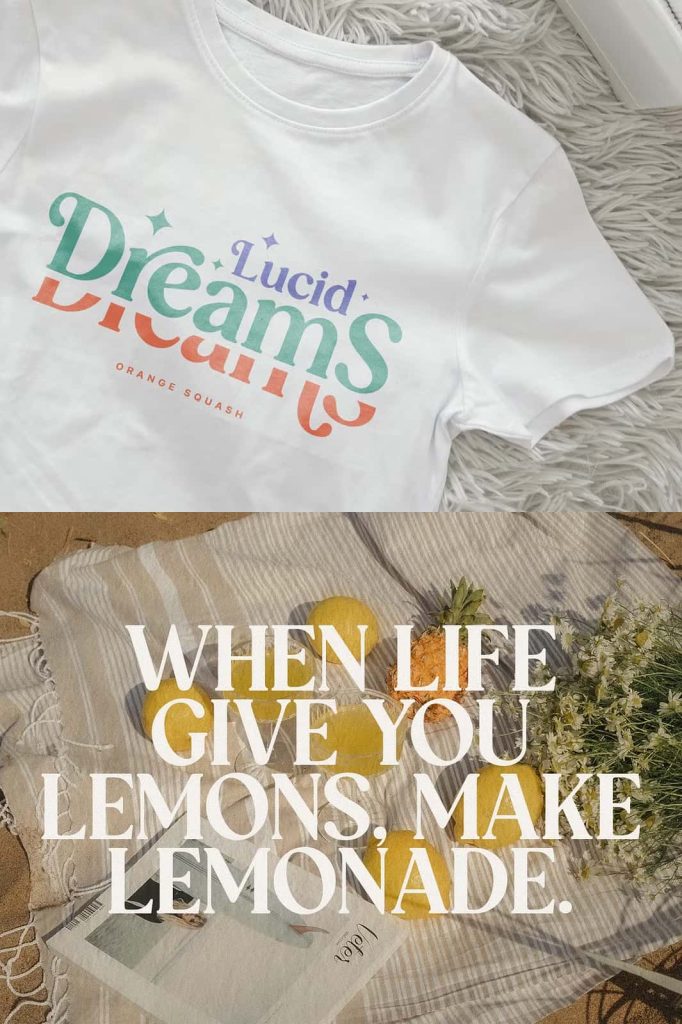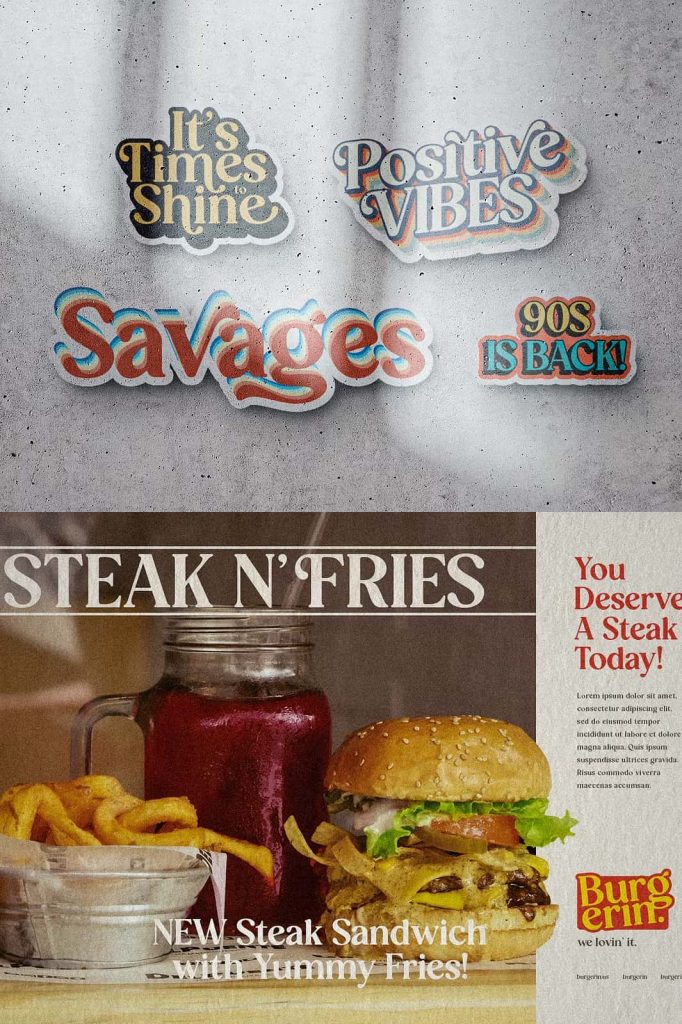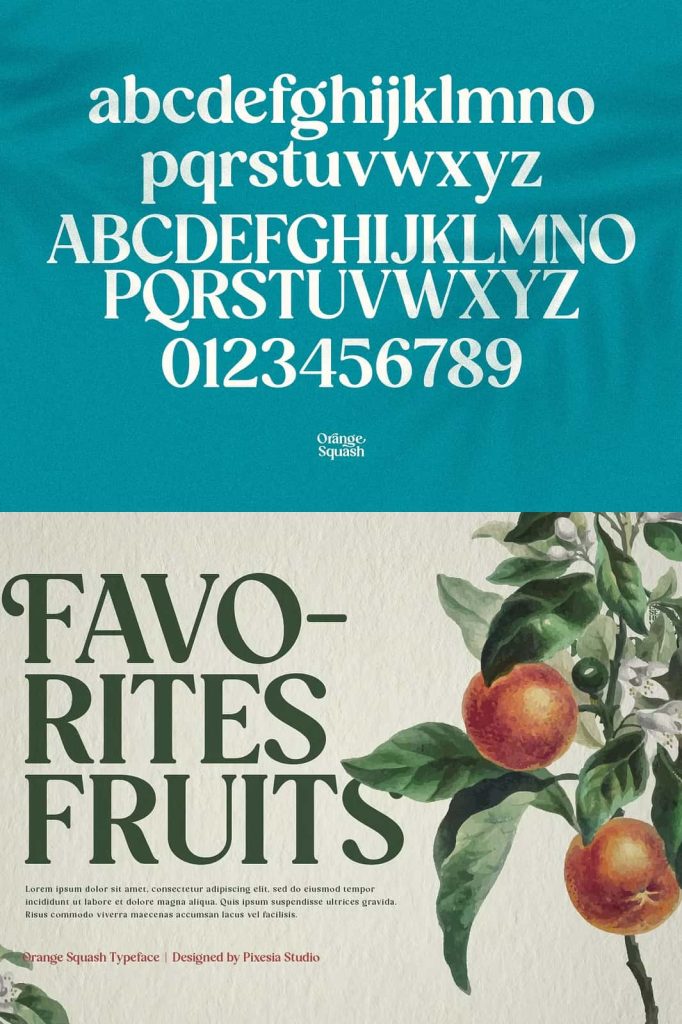
Orange Squash Vintage Serif Font for Bold and Playful Designs
Orange Squash is a vibrant vintage serif font that blends bold structure with playful character. Designed to bring nostalgia and energy into your work, this typeface features chunky serifs and smooth curves that instantly capture attention. Whether you create branding, packaging, or editorial layouts, Orange Squash helps you deliver designs that feel expressive, memorable, and visually engaging.
Bold Serif Style with Playful Personality
Orange Squash stands out through its strong serif construction combined with soft, rounded details. The chunky serifs give the font a solid and confident presence, while the playful curves add warmth and approachability. This combination creates a balanced design that feels both bold and friendly.
The font’s unique personality makes it ideal for projects that need to communicate creativity and originality. Instead of appearing rigid or overly traditional, Orange Squash introduces a lively twist that keeps your designs fresh and engaging.
Designed to Capture Attention
Every letter in Orange Squash has been carefully shaped to maximize visual impact. The bold strokes ensure readability, even at larger sizes, while the distinctive curves make each word stand out. This makes the font highly effective for display purposes, where grabbing attention is essential.
You can use it to highlight key messages, create striking headlines, and build compositions that immediately draw the viewer’s eye.
Bring Nostalgic Charm into Modern Projects
Orange Squash channels a vintage aesthetic that feels both nostalgic and relevant. Its retro-inspired design allows you to evoke classic design eras while maintaining a modern edge. This versatility makes it suitable for a wide range of creative directions.
Designers can use this font to create visuals that connect with audiences through familiarity and charm. The nostalgic elements add depth, helping your work stand out in a competitive visual landscape.
Perfect for Headlines and Logos
Orange Squash excels in headline and logo design. Its bold and playful style ensures that your typography becomes the focal point of your composition. Whether you design posters, advertisements, or brand identities, this font helps you create strong and memorable visuals.
The distinctive serif shapes give logos a unique identity, making them instantly recognizable. This makes the font a powerful tool for branding projects that aim to leave a lasting impression.
Enhance Packaging and Advertising
In packaging and advertising, strong typography plays a crucial role in attracting attention. Orange Squash delivers exactly that with its bold presence and playful character. You can use it to highlight product names, promotional messages, and key information effectively.
Its vintage style works particularly well for products that want to evoke tradition, quality, or a sense of nostalgia. At the same time, its clean execution ensures that it fits seamlessly into modern marketing campaigns.
Ideal for Editorial and Creative Layouts
Orange Squash adapts well to editorial design, where typography needs to balance style and readability. You can use it for magazine headlines, section titles, and feature articles to create visually engaging layouts. Its bold structure helps guide the reader’s attention, while its playful curves add personality to the overall design.
The font also works well in creative projects such as posters, social media graphics, and promotional materials. Its versatility allows you to experiment with different layouts and styles without losing consistency.
Versatile Across Print and Digital Media
Orange Squash performs reliably across both print and digital platforms. In print, its bold serifs and smooth curves create a strong visual presence that enhances physical materials. On digital screens, the font maintains clarity and readability, ensuring that your message remains effective.
This adaptability makes it a valuable choice for designers working on multi-platform projects. You can use it to maintain a cohesive visual identity across websites, social media, and printed assets.
Key Features of Orange Squash Font
- Bold vintage serif font with playful character
- Chunky serifs and smooth curves for strong visual impact
- Perfect for headlines, logos, and branding
- Ideal for packaging, advertising, and editorial design
- Works effectively across print and digital media
Create Designs That Stand Out
Orange Squash vintage serif font gives you the tools to create designs that feel bold, nostalgic, and full of personality. Its combination of strong structure and playful detail allows you to produce visuals that capture attention and connect with your audience.
If you want to add a unique retro touch to your projects while maintaining a modern and polished look, Orange Squash is an excellent choice. Use it to enhance your typography, strengthen your branding, and bring your creative ideas to life with confidence.